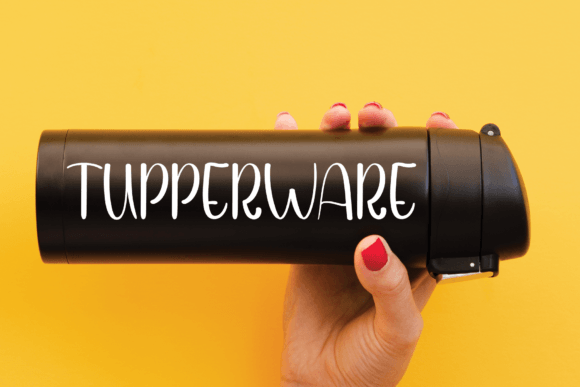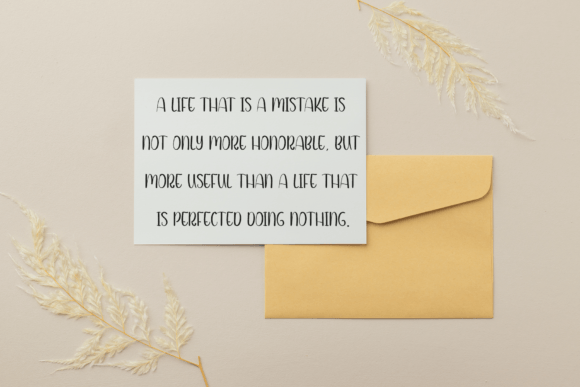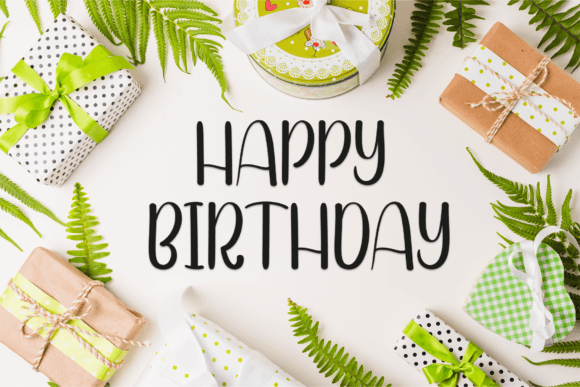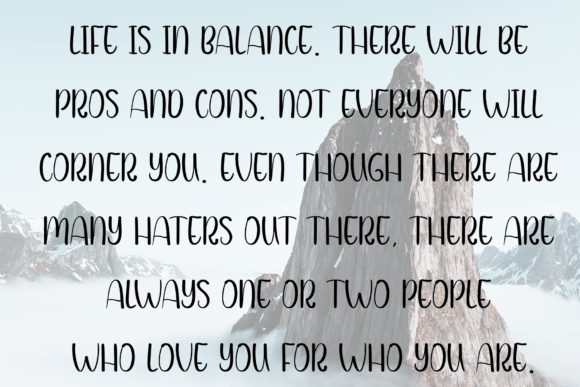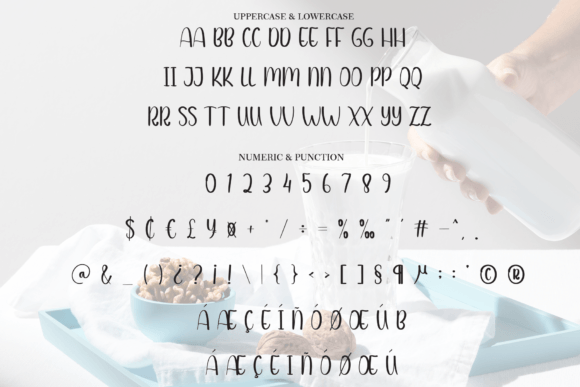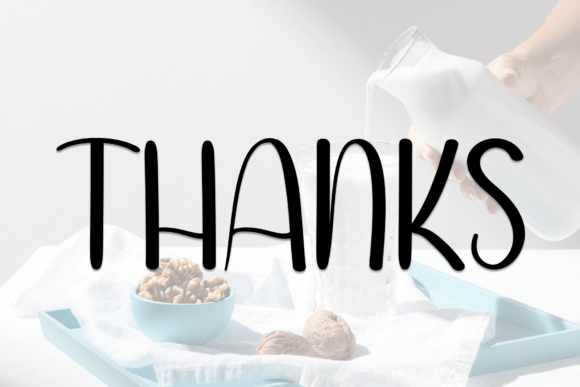
Creamer Font: The Sweet and Friendly Handwritten Font for Your Creative Projects
Are you looking for a font that can add a touch of sweetness and friendliness to your designs? Look no further than the Creamer Font! This beautiful handwritten font is perfect for creating wedding invitations, cards, and other designs that require a fun and playful touch. In this article, we’ll take a closer look at the Creamer Font, its features, and how you can use it to elevate your creative projects.
What is Creamer Font?
Creamer Font is a sweet and friendly handwritten font that is designed to bring a touch of warmth and personality to your designs. Its fresh and cute style makes it ideal for a variety of creative projects, from wedding invitations and cards to social media graphics and blog posts. The font is carefully crafted to resemble handwriting, giving it a personal and approachable feel that is sure to delight your audience.
Key Features of Creamer Font
So, what makes Creamer Font so special? Here are some of its key features:
- Sweet and Friendly Style: Creamer Font has a sweet and friendly style that is perfect for creating designs that require a personal touch.
- Handwritten Look: The font has a carefully crafted handwritten look that gives it a warm and approachable feel.
- Fresh and Cute: Creamer Font is fresh and cute, making it ideal for designs that require a fun and playful touch.
- Easy to Read: The font is easy to read, making it perfect for body text and headings.
- Versatile: Creamer Font is versatile and can be used for a variety of creative projects, from wedding invitations to social media graphics.
How to Use Creamer Font in Your Designs
Now that we’ve covered the features of Creamer Font, let’s take a look at how you can use it in your designs. Here are some ideas to get you started:
- Wedding Invitations: Creamer Font is perfect for creating beautiful and personalized wedding invitations that will make your guests feel special.
- Cards and Stationery: The font is ideal for creating a variety of cards and stationery, from birthday cards to thank-you notes.
- Social Media Graphics: Creamer Font can be used to create fun and engaging social media graphics that will help you connect with your audience.
- Blog Posts: The font is perfect for creating blog posts that require a personal touch, such as recipes, DIY tutorials, and more.
Tips for Using Creamer Font Effectively
Here are some tips for using Creamer Font effectively in your designs:
- Pair it with Other Fonts: Creamer Font can be paired with other fonts to create a unique and interesting look. Try pairing it with a bold font for headings and a clean font for body text.
- Use it for Headings and Titles: The font is perfect for headings and titles, where its sweet and friendly style can really shine.
- Experiment with Colors: Creamer Font looks great in a variety of colors, from bright and bold to soft and pastel. Experiment with different colors to find the one that works best for your design.
In conclusion, Creamer Font is a sweet and friendly handwritten font that is perfect for adding a touch of warmth and personality to your designs. Its fresh and cute style makes it ideal for a variety of creative projects, from wedding invitations and cards to social media graphics and blog posts. With its easy-to-read style and versatile design, Creamer Font is sure to become a favorite in your font collection.